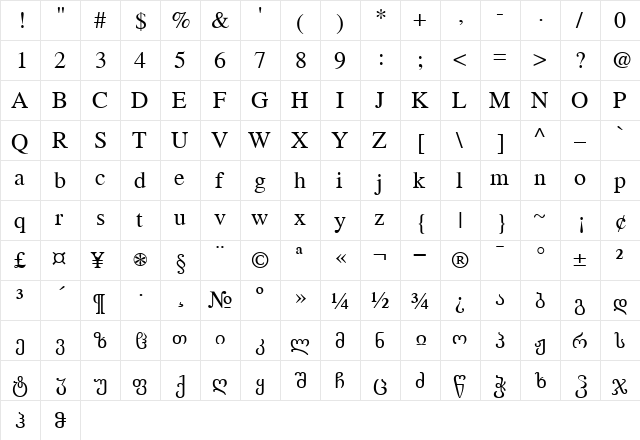
SPLiteraturuly Regular Font Preview
SPLiteraturuly Regular
Design Context for SPLiteraturuly Typeface
SPLiteraturuly offers clean, dependable letterforms without strong stylistic allegiance, making it a practical choice for designers who need flexibility.